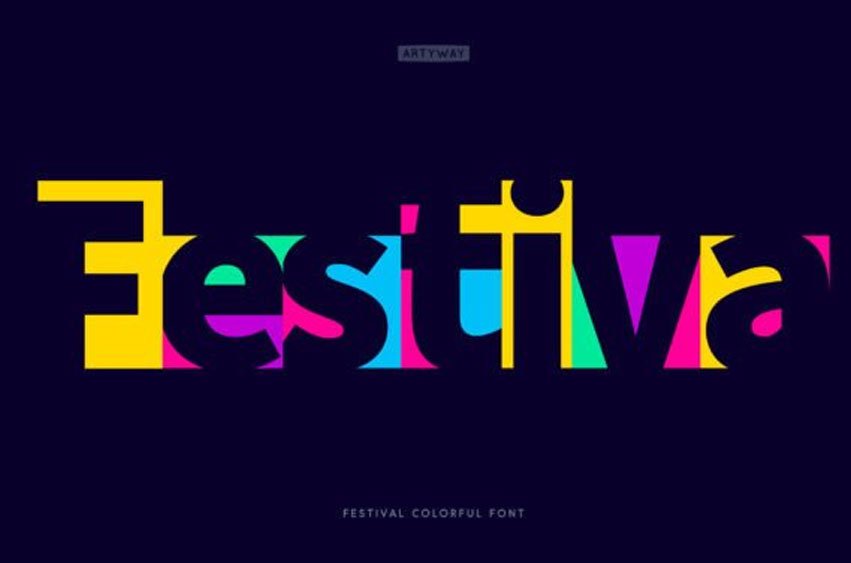
Festiva Font is a Geometric Fun Display Font with Colorful Shapes for Bold Party Vibes. “Festiva” is a lively, geometric font that mixes shaped negative space of letters, bold modern colors, and Mexican or Indian Festive vibes.
Perfect for creating vibrant, energetic designs for parties, events, and entertainment branding, bright geometric logos, Mexican or Indian fest headlines, birthday greeting cards, and school project designs.